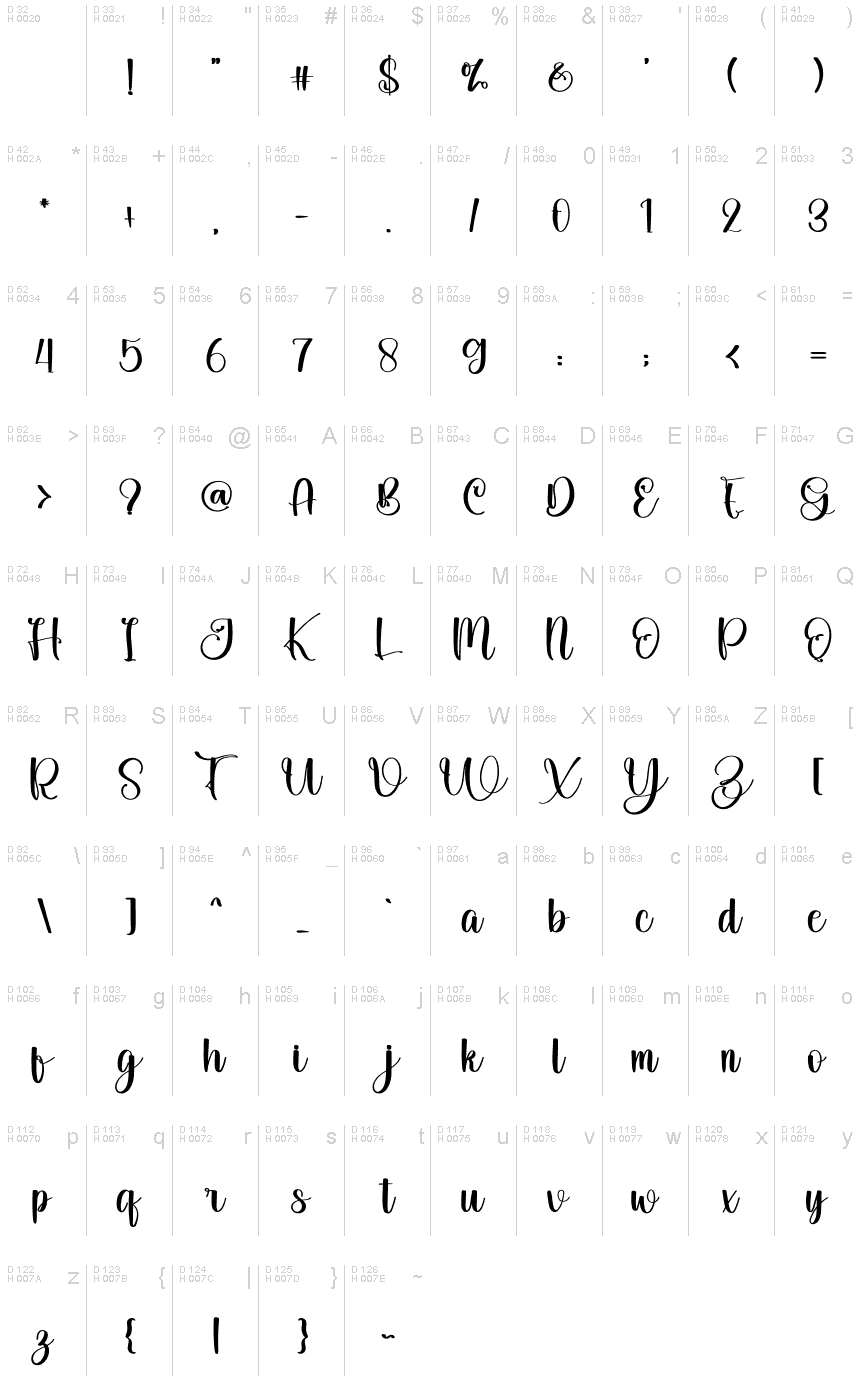
Underline, a captivating calligraphy font by FreshtypeINK, adds an elegant touch to any creative project. Its graceful curves and fluid strokes make it perfect for wedding invitations, branding materials, and feminine product packaging. The semi-bold font weight provides a bold statement while maintaining legibility, making it suitable for eye-catching headlines in magazines or on websites. Underline's versatility extends to social media graphics, where its unique style effortlessly catches the viewer's attention. Whether you're designing a logo or creating stunning artwork, Underline is your go-to font for adding a touch of sophistication and style.